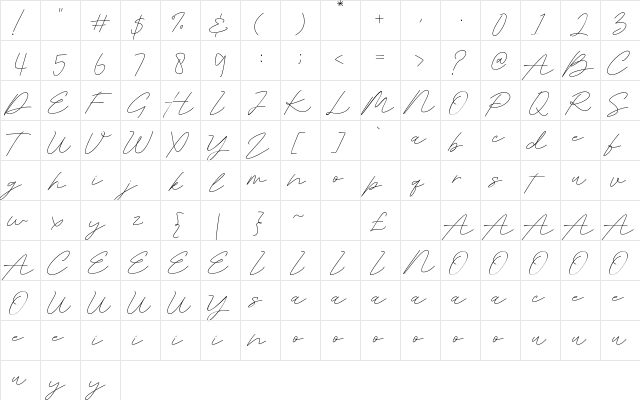
Belatina Regular
| Designer | AddeSant |
Design Context for Belatina Typeface
Belatina is a composed and adaptable typeface that performs quietly and consistently across a wide range of design contexts.